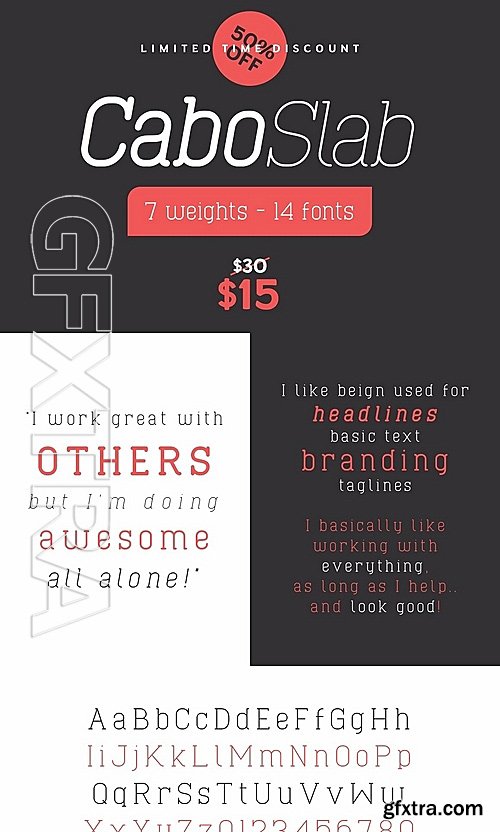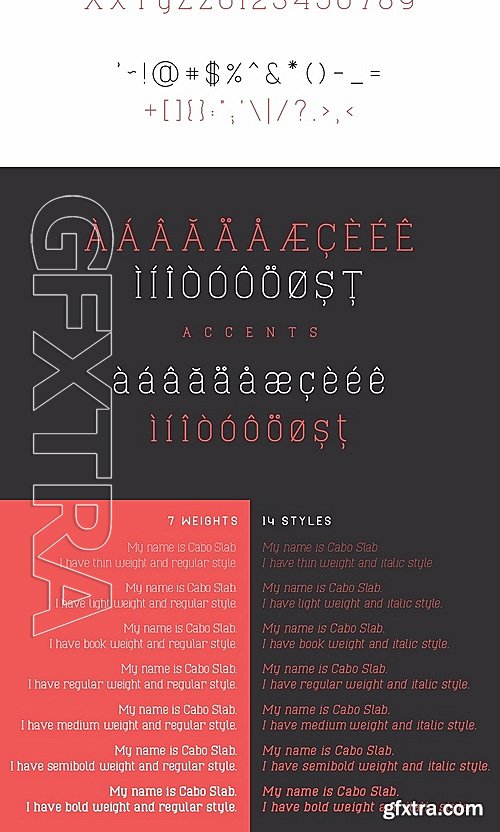
CM - Cabo Slab Font Family 1239253
It's my great pleasure to introduce you my latest creation, a slab serif font family called "Cabo Slab". The fonts are based on the sans serif version called "Cabo Rounded" - https://crmrkt.com/Ggb5a - updated to a slab serif style.
The font family comes in 7 weights and 14 styles, basic alphabet letters, punctuation marks and a couple of accents.